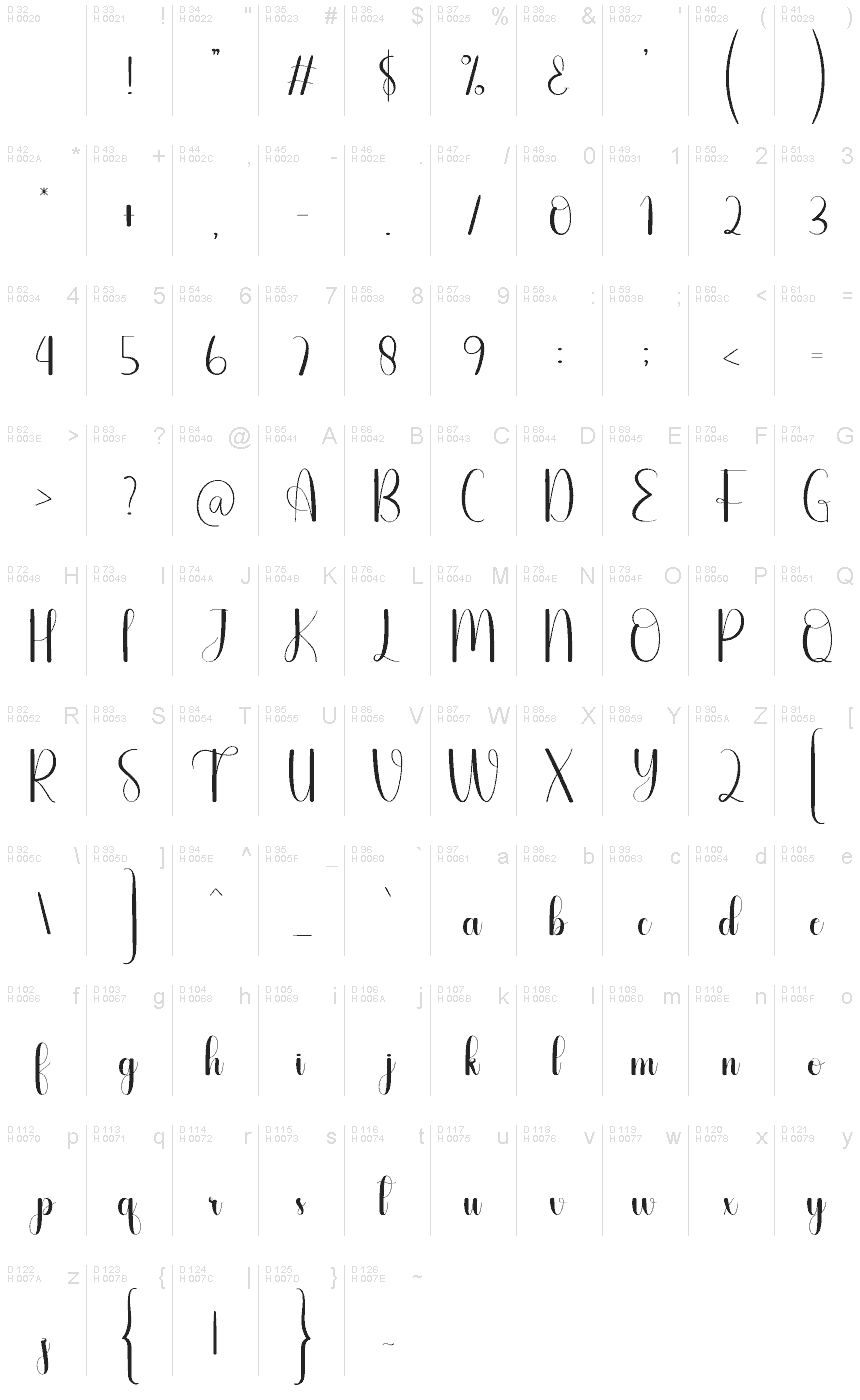
Personable
Personable font by Andi Moz is a free calligraphy font with decorative curves and twists. It is sophisticated and charming, expressing itself through elegant lines and natural flowing beauty. Its expressive nature makes it a modern display tool for brands to get their customers’ attention while gaining their appreciation at the same time.
Use it to design professional branding words and logotypes, classy magazine covers or body text, captivating posters or packaging labels. Websites, business cards, greeting cards, icons, social media posts are also viable ideas that can benefit from Personable in some way or another.